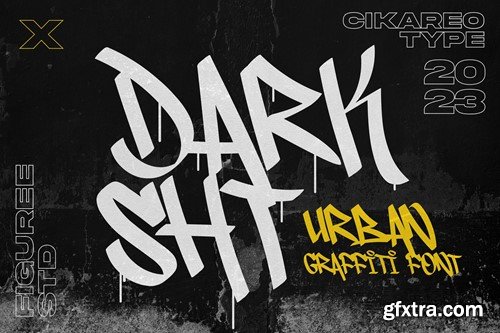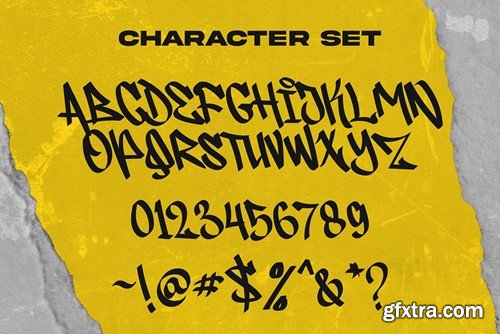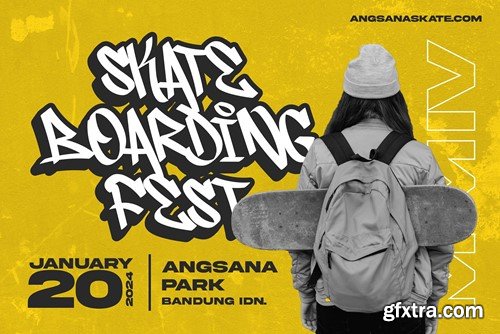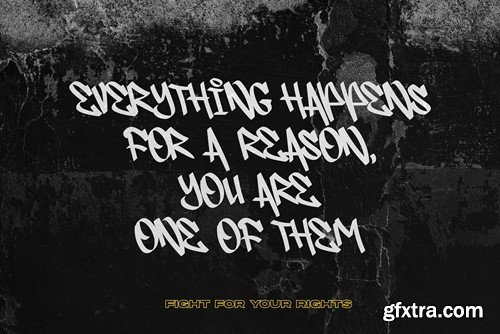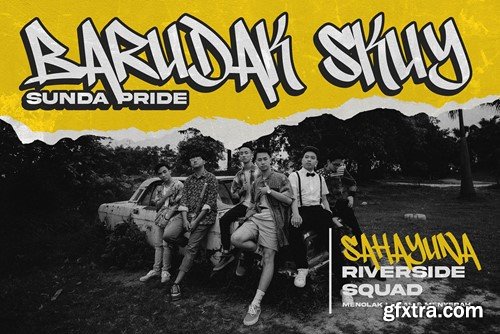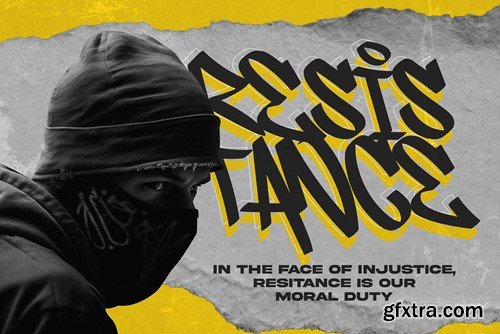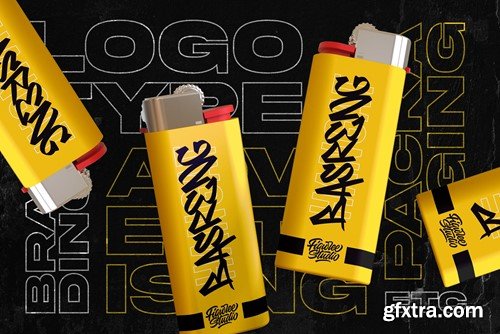
暗黑 - 城市涂鸦字体 QSDRKA4
Darksht is a bold and rebellious urban graffiti font that exudes an edgy and streetwise vibe. Its gritty, expressive lettering captures the raw and underground spirit of graffiti art, making it the ideal choice for projects that demand a touch of urban defiance. Whether it's for posters, street art, or designs that require a gritty and unapologetic aesthetic, Darksht injects a dose of urban energy into your typography, leaving a powerful impression on the streets and screens alike. File Included: Features: That's it! If you have any questions don't hesitate to ask! Stay Classy!